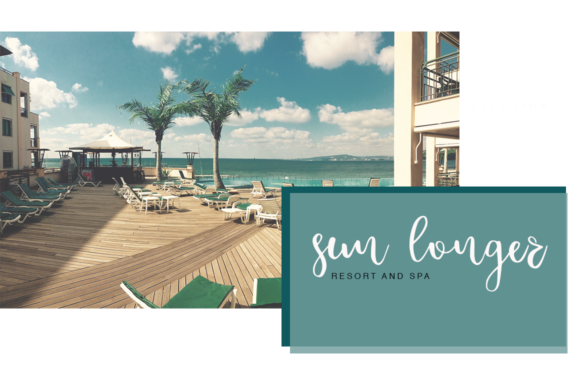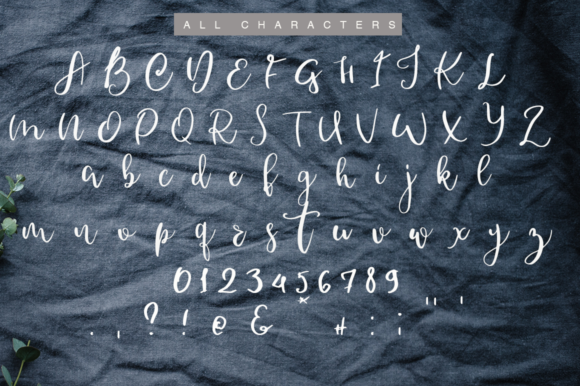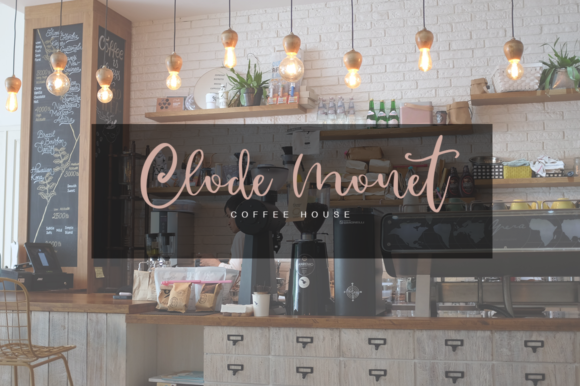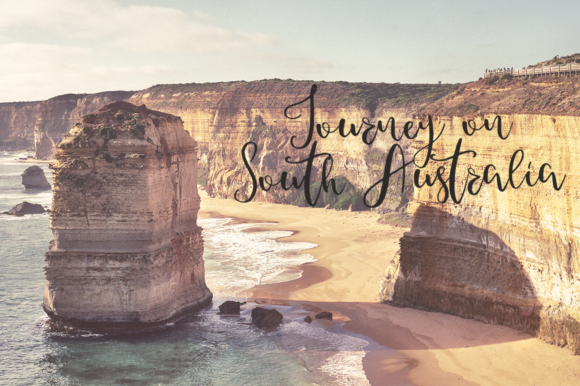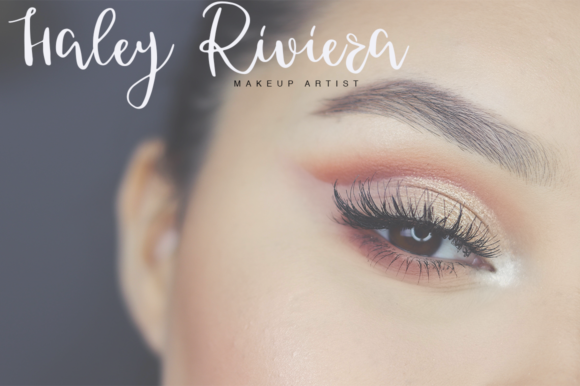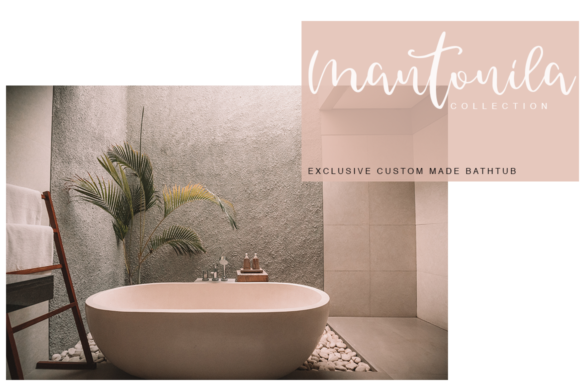
Discover the Elegance of Donnio Font: A Unique Script Font for Your Creative Projects
In the world of typography, fonts play a crucial role in conveying the tone and personality of a brand or design. For designers and crafters looking to add a touch of elegance and uniqueness to their projects, the Donnio font is an excellent choice. This script font has been carefully crafted with gentle curves to produce a distinctive and original typeface that is sure to make your lettering projects and branding stand out.
What Makes Donnio Font Special?
Donnio is a script font that boasts a unique blend of elegance and playfulness. Its gentle curves and fluid strokes give it a distinctive feel that is both sophisticated and approachable. The font has been attentively written to ensure that each letter flows seamlessly into the next, creating a beautiful and harmonious visual effect.
One of the key features that sets Donnio apart from other script fonts is its originality. In a world where many fonts can look similar, Donnio offers a refreshing change of pace with its unique character set. Whether you’re working on a branding project, a wedding invitation, or a packaging design, Donnio is the perfect choice for adding a touch of personality and style.
Perfect for Lettering Projects and Branding
Donnio font is ideal for a wide range of creative projects, including lettering, branding, and packaging design. Its elegant and unique character makes it perfect for:
- Packaging design and labels
Whether you’re a professional designer or a crafter looking to add a personal touch to your projects, Donnio font is a versatile and reliable choice.
Why Choose Donnio Font?
So why choose Donnio font for your next project? Here are just a few reasons:
- Unique and original design: Donnio font offers a distinctive and original character set that will set your project apart from the rest.
- Elegant and sophisticated: The gentle curves and fluid strokes of Donnio font give it an elegant and sophisticated feel that’s perfect for high-end branding and design projects.
- Versatile: Donnio font can be used for a wide range of creative projects, from lettering and branding to packaging design and signage.
Tips for Using Donnio Font
To get the most out of Donnio font, here are a few tips:
- Use it sparingly: Donnio font is best used sparingly to add a touch of elegance and sophistication to your project. Avoid overusing it, as this can dilute its impact.
- Experiment with different sizes: Donnio font looks great in a variety of sizes, from large display graphics to small body text.
- Pair it with other fonts: Donnio font pairs well with a range of other fonts, including sans-serif and serif fonts. Experiment with different pairings to find the one that works best for your project.
In conclusion, Donnio font is a unique and elegant script font that’s perfect for adding a touch of sophistication and style to your lettering projects and branding. With its gentle curves and fluid strokes, Donnio font is sure to make your project stand out from the rest. Whether you’re a professional designer or a crafter looking to add a personal touch to your projects, Donnio font is an excellent choice.